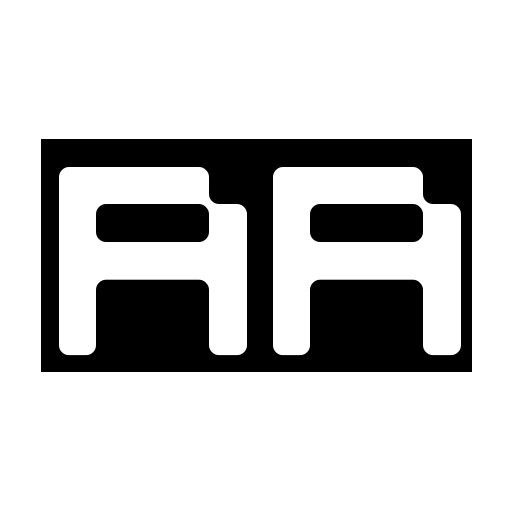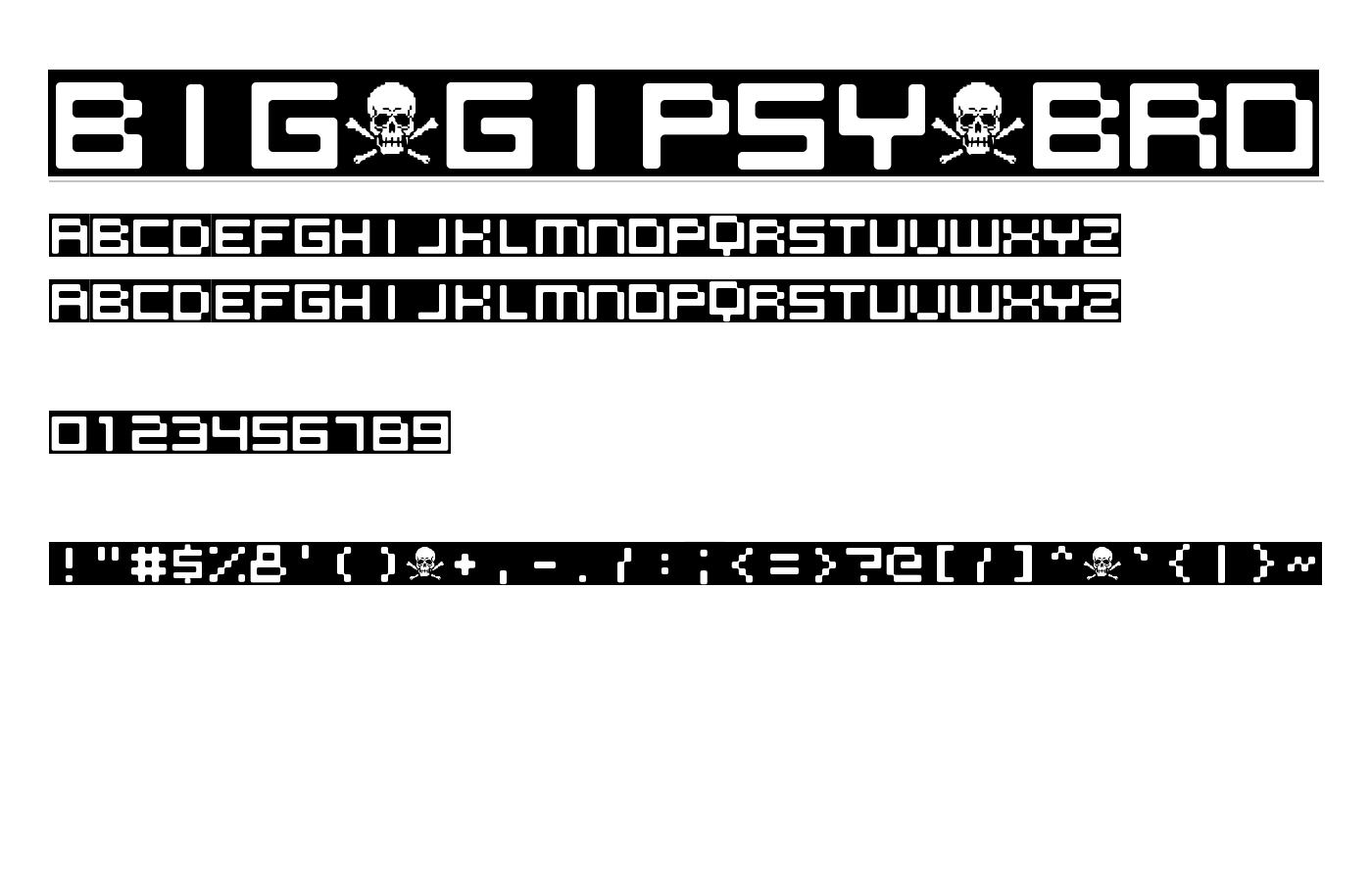
BIG_GIPSY_BRO is a bold, blocky sans serif font with a strong geometric and pixelated style, featuring all-uppercase characters enclosed in rectangular outlines. Its high-contrast, rigid strokes and unique decorative skull-and-crossbones glyphs give it an edgy, techno-punk vibe, making it ideal for striking headlines, posters, or branding that demands an urban, rebellious attitude. This font works best in display settings where its distinctive shapes and strong presence can stand out and create a memorable impact.
BIG_GIPSY_BRO Font
About BIG_GIPSY_BRO Font